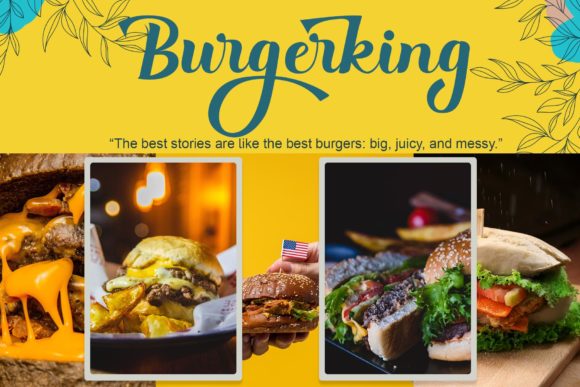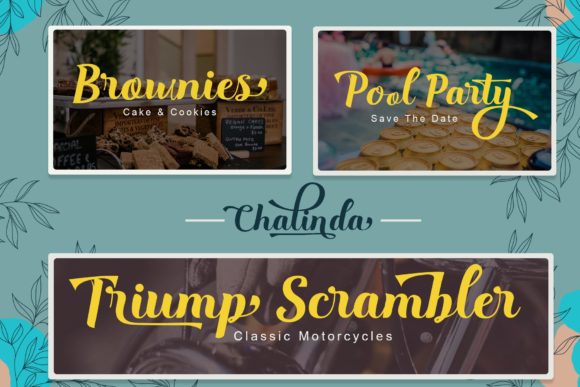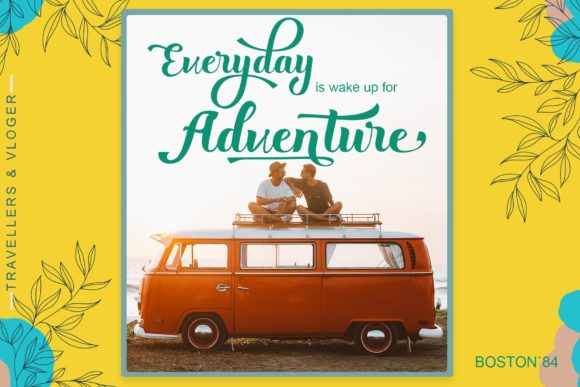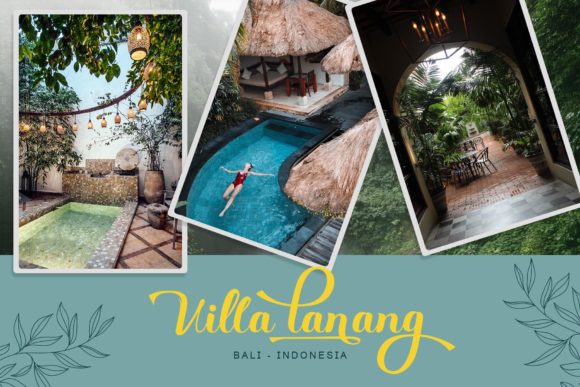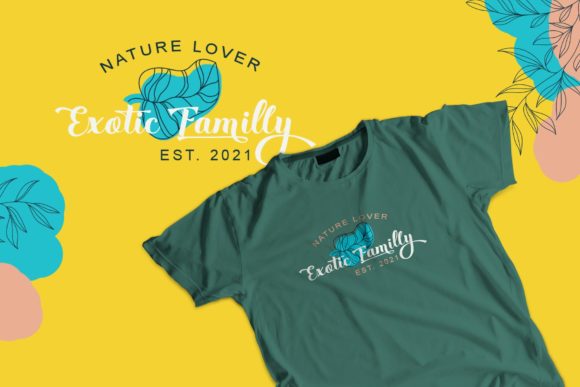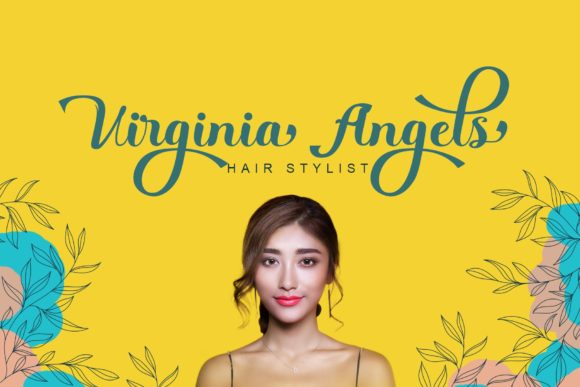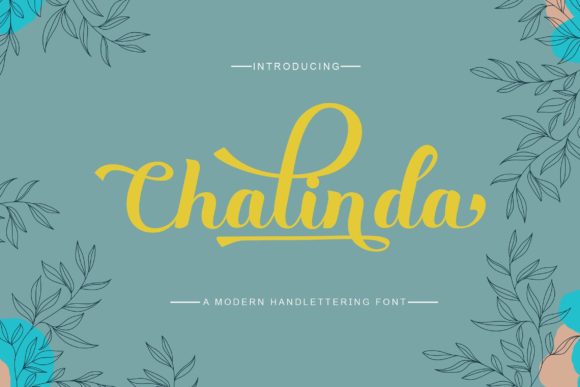
Introducing Chalinda Font: Elevate Your Designs with a Stylish and Confident Handwritten Style
Are you looking for a font that can add a touch of elegance and sophistication to your designs? Look no further than Chalinda Font. This gorgeous and daring handwritten font is crafted to give your headlines and logotype projects a stylish touch that’s sure to turn heads. With its strong, confident, and dynamic personality, Chalinda Font is the perfect choice for designers and crafters who want to add a unique and nostalgic character to their work.
What Makes Chalinda Font So Special?
Chalinda Font is a carefully crafted handwritten font that’s designed to make a statement. Its bold and expressive strokes are perfect for creating eye-catching headlines, logos, and titles that demand attention. The font’s unique character is a perfect blend of modern and vintage elements, making it versatile enough to work well in a variety of design contexts.
One of the standout features of Chalinda Font is its ability to add a touch of nostalgia to your designs. The font’s classic and timeless feel is reminiscent of traditional handwritten fonts from the past, but with a modern twist that makes it feel fresh and contemporary. Whether you’re working on a branding project, a packaging design, or a digital marketing campaign, Chalinda Font is sure to bring a touch of warmth and personality to your work.
Key Features of Chalinda Font
So, what makes Chalinda Font so special? Here are just a few of its key features:
- Handwritten style: Chalinda Font is a genuine handwritten font, crafted to give your designs a personal and authentic touch.
- Strong and confident: The font’s bold and expressive strokes make it perfect for creating eye-catching headlines and titles.
- Dynamic and versatile: Chalinda Font can be used in a variety of design contexts, from branding and packaging to digital marketing and more.
- Nostalgic character: The font’s classic and timeless feel adds a touch of warmth and personality to your designs.
How to Use Chalinda Font in Your Designs
- Choose the right size and style: Experiment with different font sizes and styles to find the perfect look for your design.
- Pair with other fonts: Chalinda Font pairs well with a variety of other fonts, so don’t be afraid to experiment with different combinations.
- Use in a variety of design contexts: Chalinda Font can be used in everything from branding and packaging to digital marketing and more.
Tips and Tricks for Getting the Most Out of Chalinda Font
Here are a few tips and tricks to help you get the most out of Chalinda Font:
- Use it sparingly: Chalinda Font is a bold and expressive font, so use it sparingly to avoid overwhelming your design.
- Experiment with different colors: The font’s bold and expressive strokes look great in a variety of colors, so don’t be afraid to experiment.
- Pair with images and graphics: Chalinda Font pairs well with images and graphics, so consider using it in combination with visual elements.
In conclusion, Chalinda Font is a gorgeous and daring handwritten font that’s perfect for designers and crafters who want to add a stylish touch to their work. With its strong, confident, and dynamic personality, Chalinda Font is sure to bring a touch of nostalgia and sophistication to your designs. Whether you’re working on a branding project, a packaging design, or a digital marketing campaign, Chalinda Font is the perfect choice.